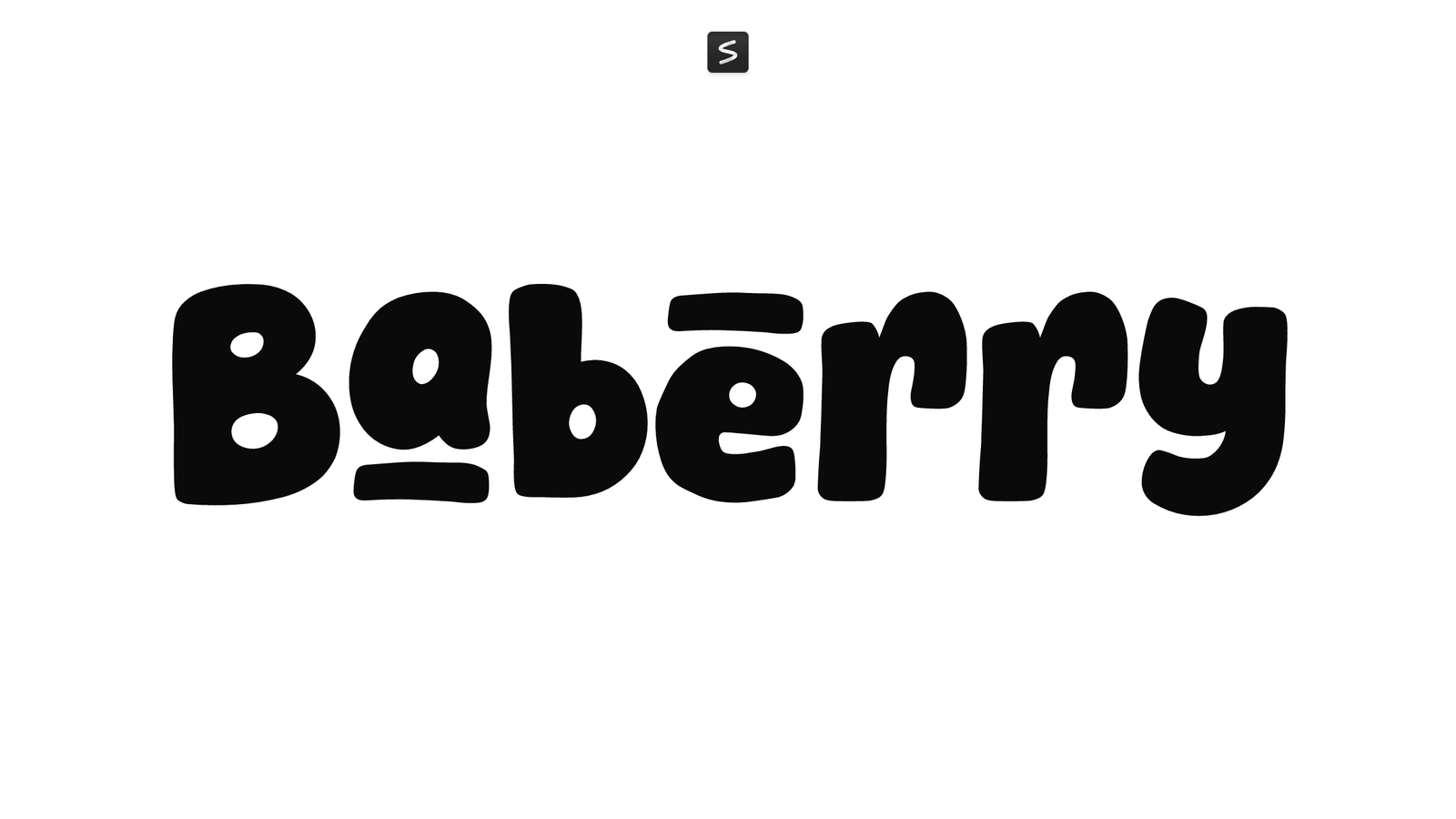
Baberry is a rounded sans-serif font by Khurasan™ with generous curves and a distinctly cartoonish personality. The bulbous letterforms and consistent stroke weight create a warm, approachable aesthetic that works well for casual and playful contexts.
The rounded proportions and soft edges give Baberry a friendly, youthful character without feeling overly stylized. It sits somewhere between a display font and everyday use, making it versatile for projects that need personality without losing readability.
Barberry works well for poster designs, children’s book covers, brand identities, social media graphics, packaging, and indie game UI. It’s a straightforward choice when you need text that feels approachable and unpretentious.